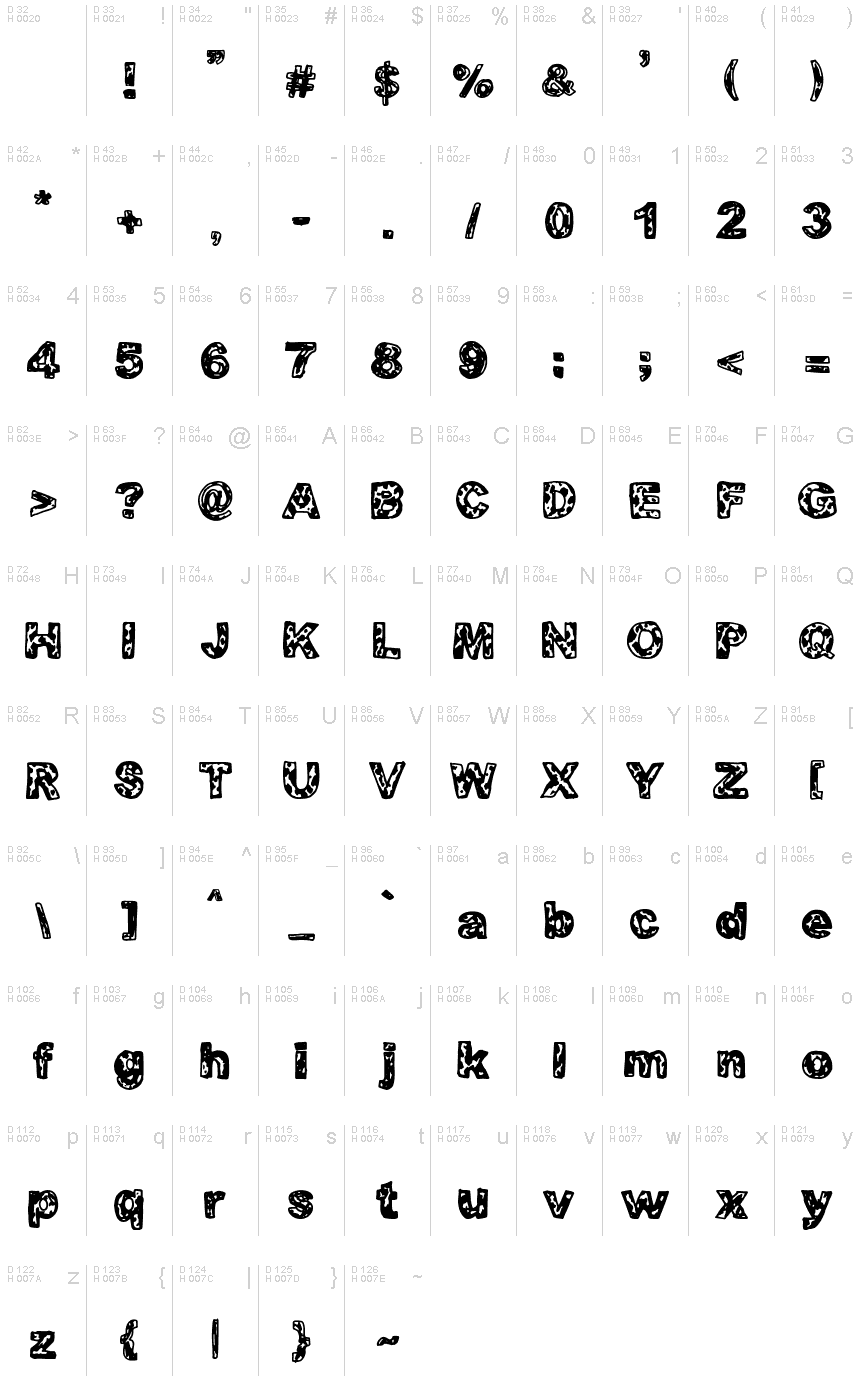
Protagonista
Protagonista, designed by Woodcutter, is a captivating display font with an extra-bold weight. Its decorative style adds a touch of whimsy and uniqueness to any project.
This font is perfect for eye-catching logos that need to make a bold statement, as well as attention-grabbing headlines in magazines or posters. With its strong and confident presence, Protagonista also suits comic book titles and covers, giving them an extra punch of personality.
Let this extraordinary font be the protagonist in your next creative endeavor!